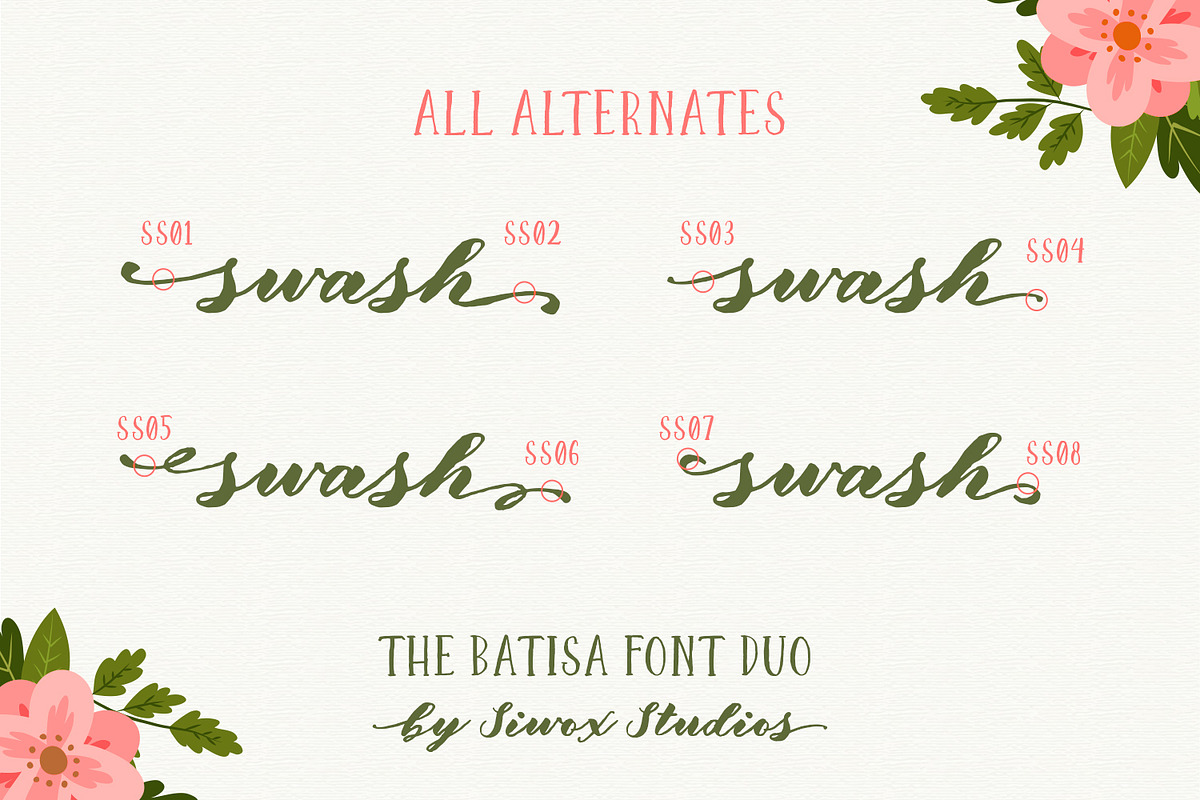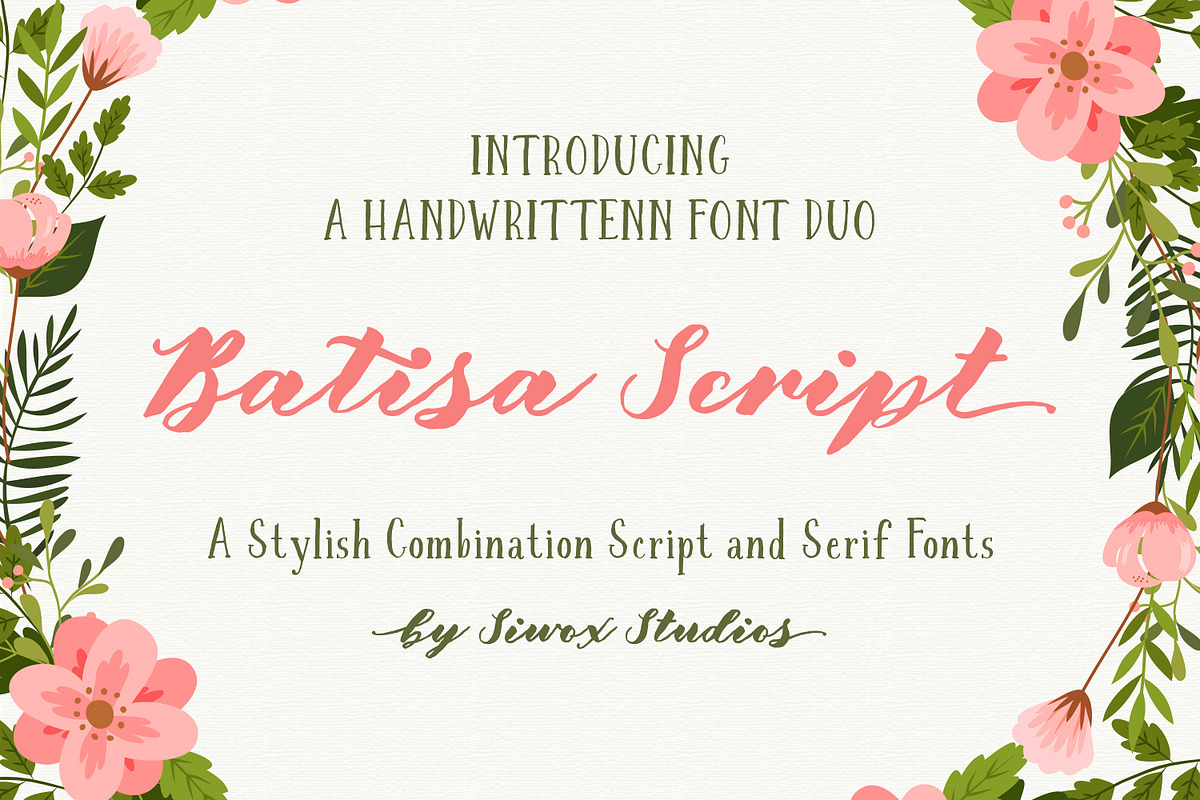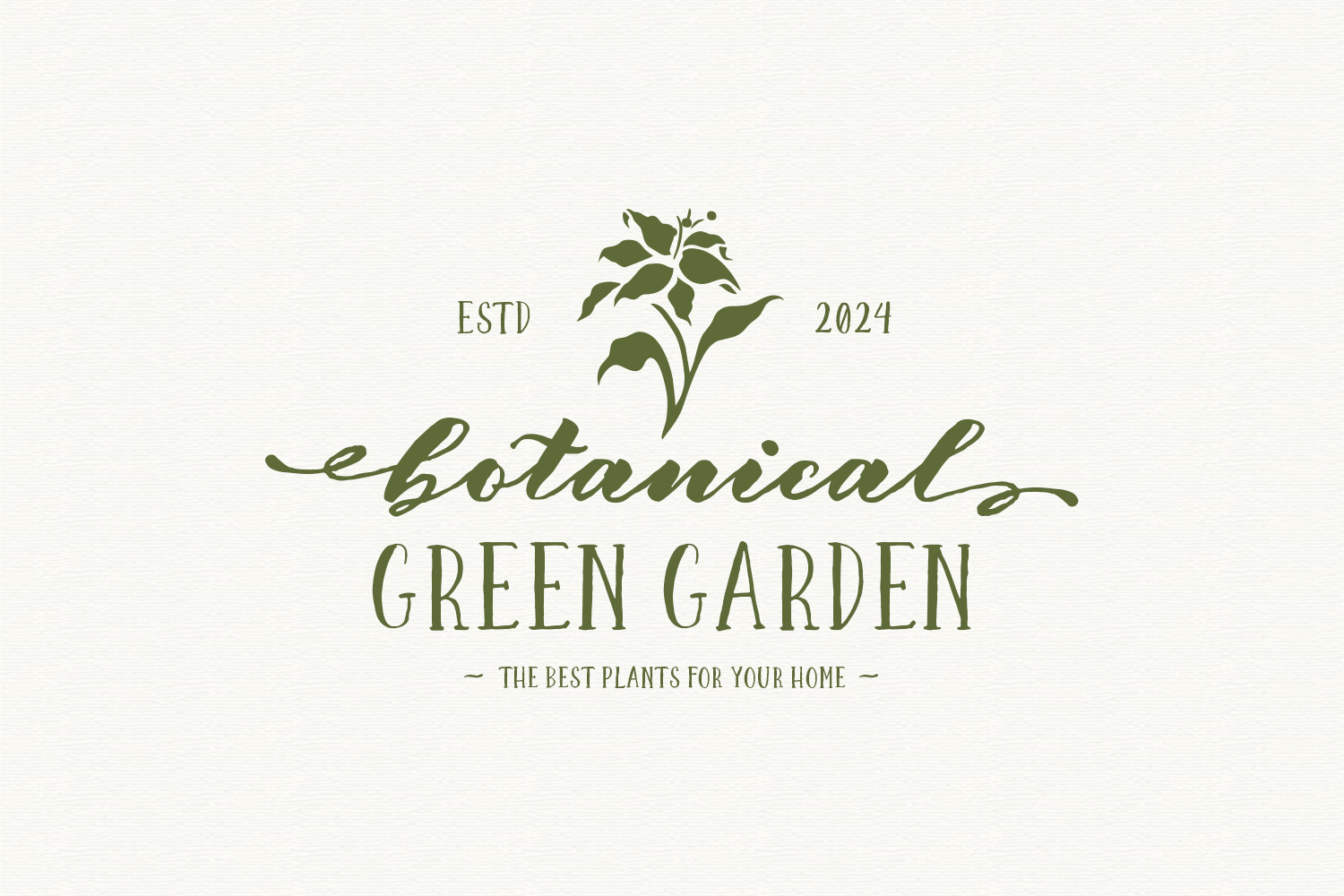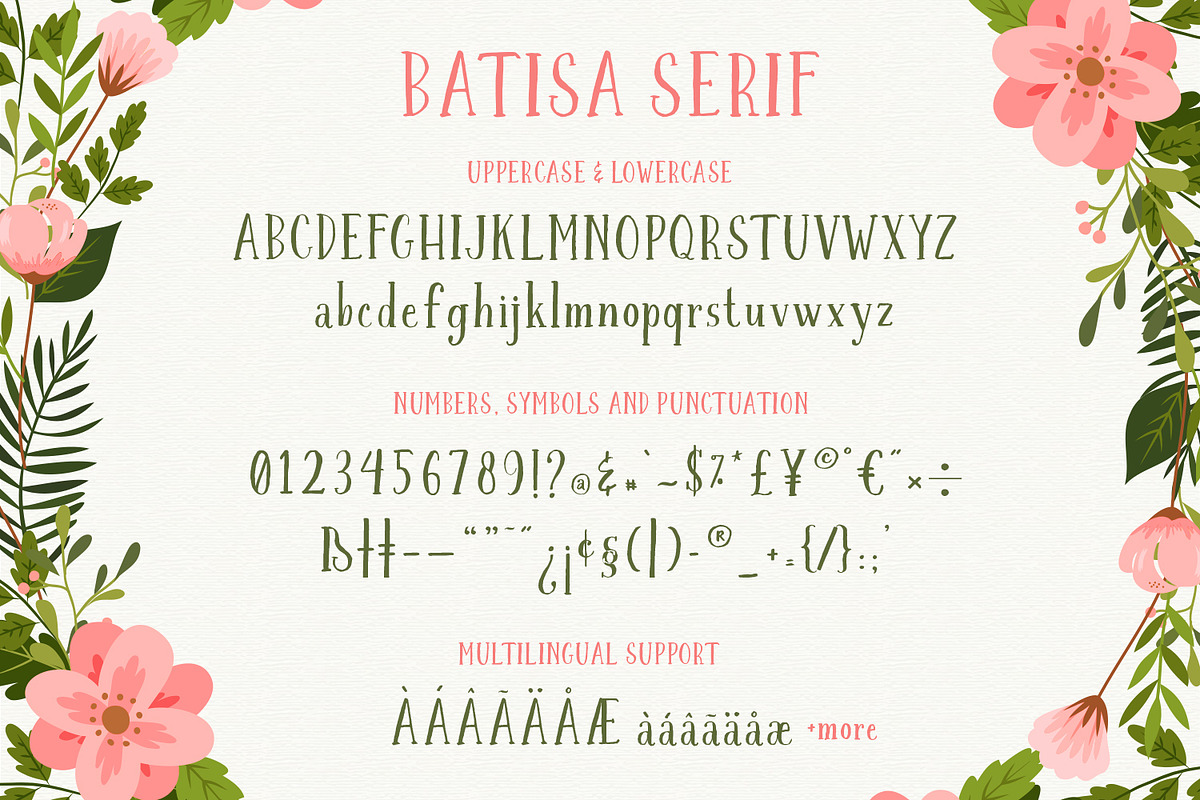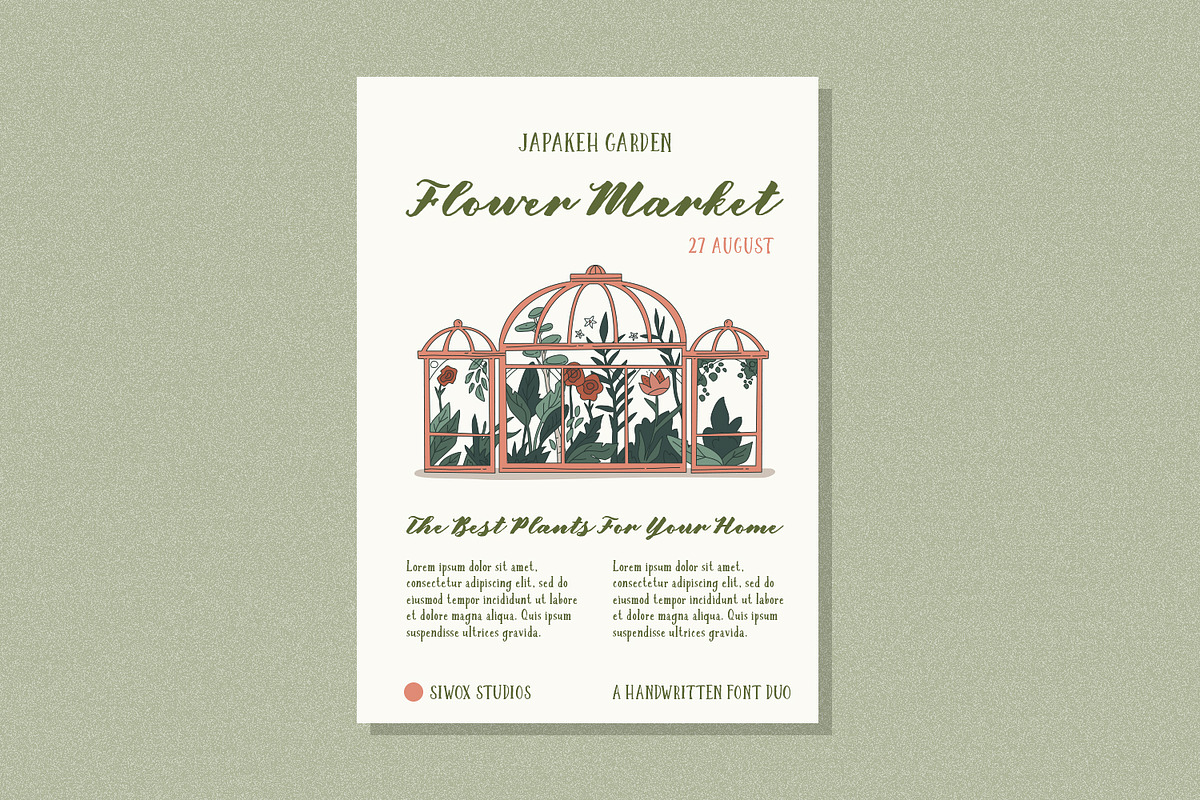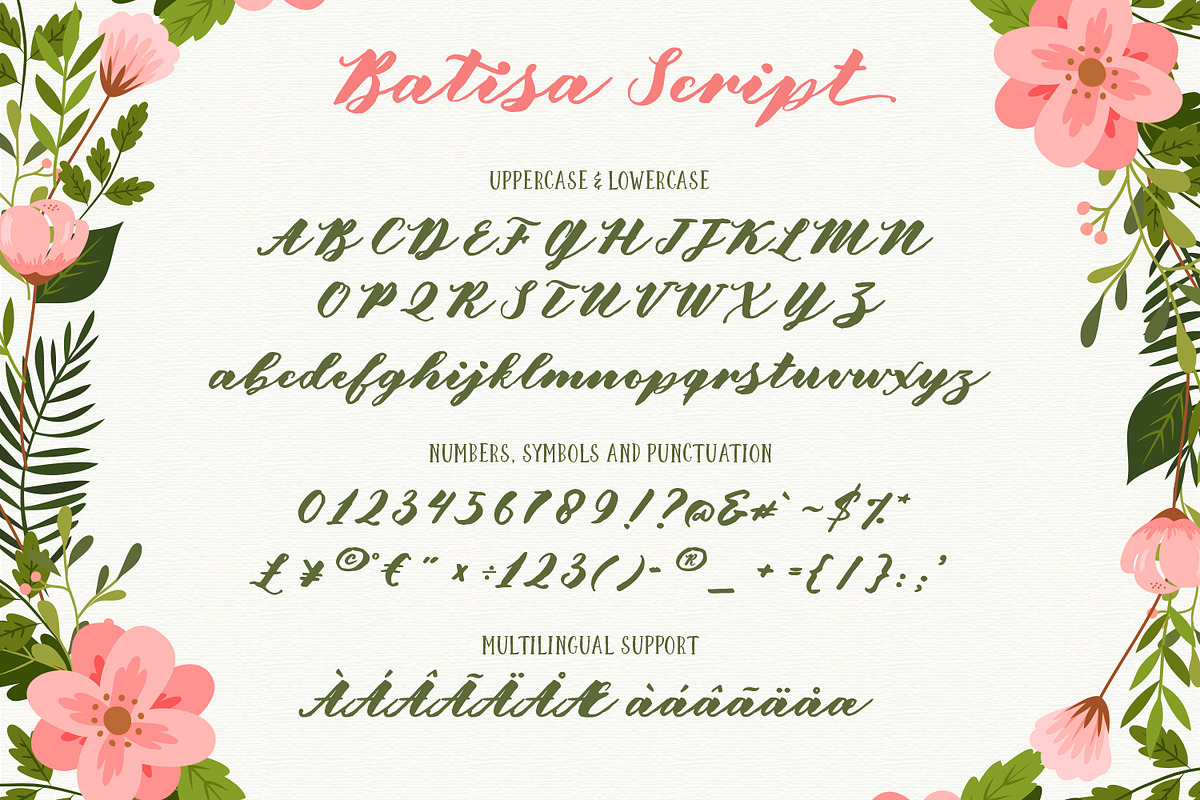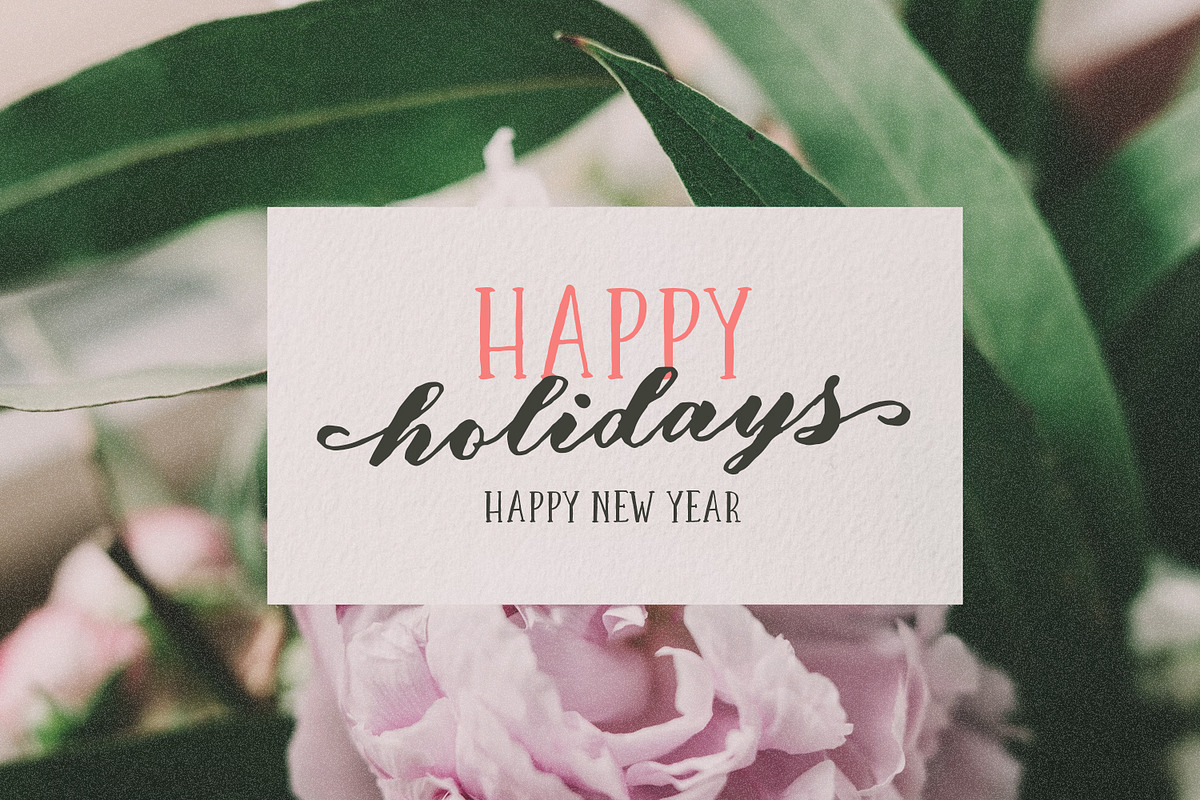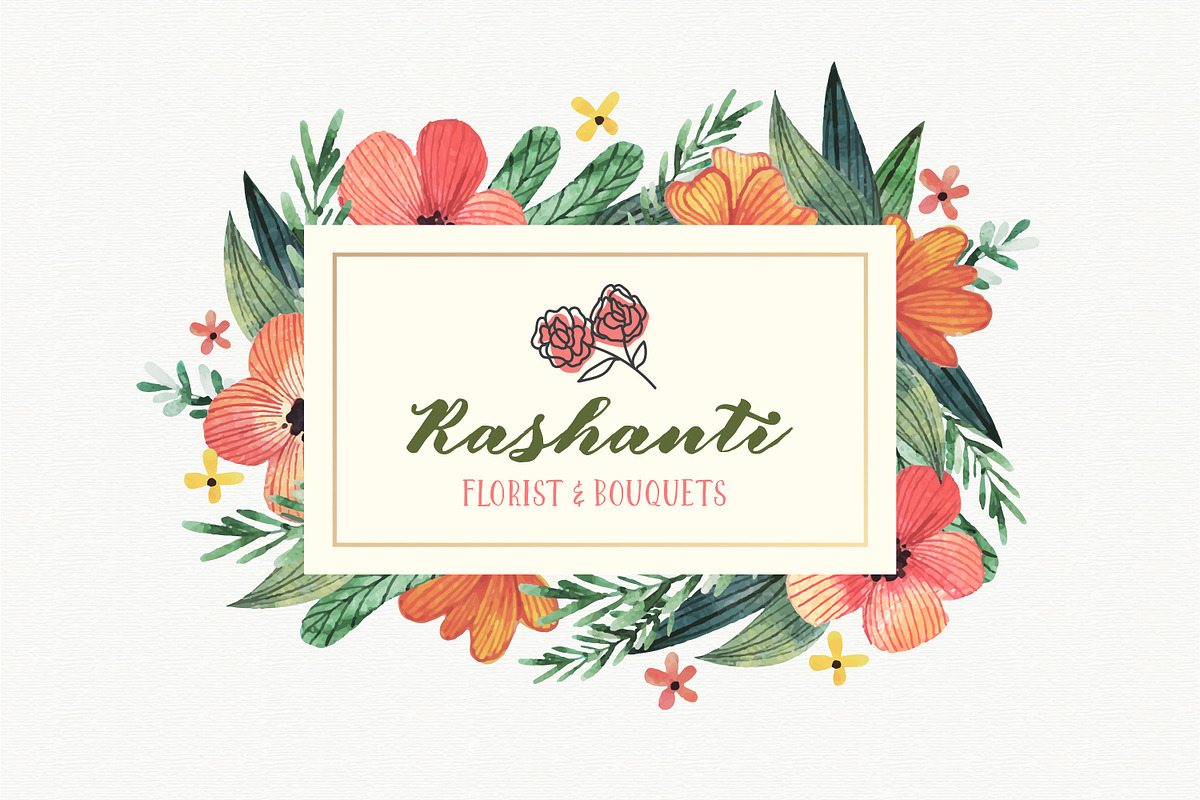
Batisa Font Duo
Introducing Batisa Font Duo
The Batisa consists of two fonts designed to complement each other perfectly. Together or apart, these fonts are ideal for adding a chic and cheery touch to your crafts - greeting cards, rustic labels,logo, typographic designs, Invites and so much more